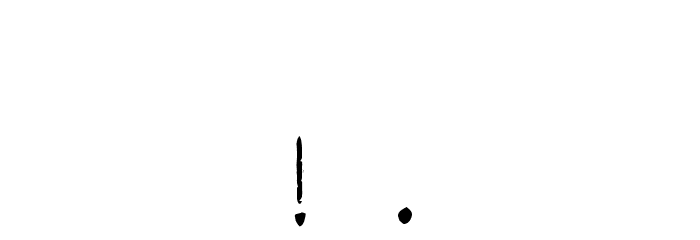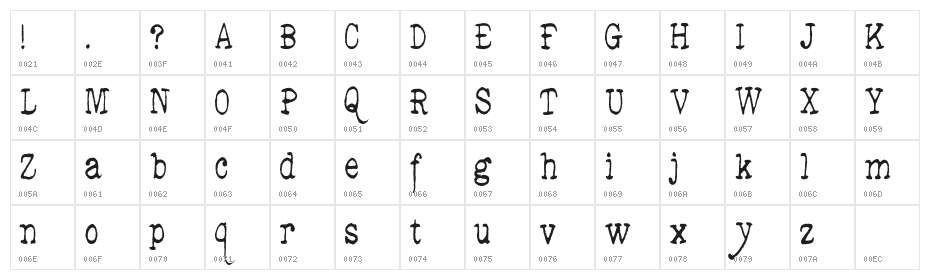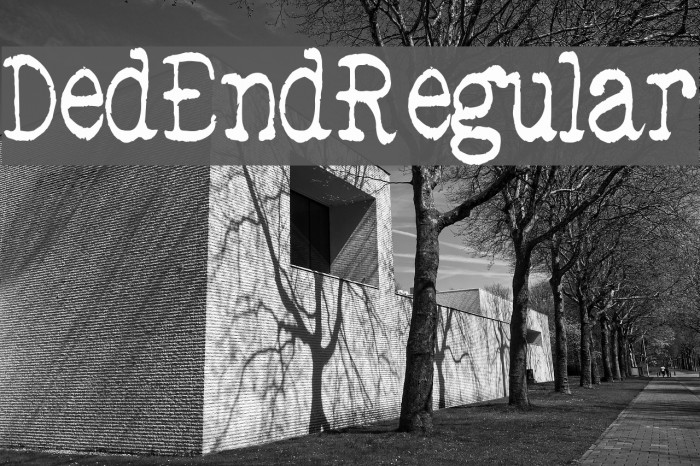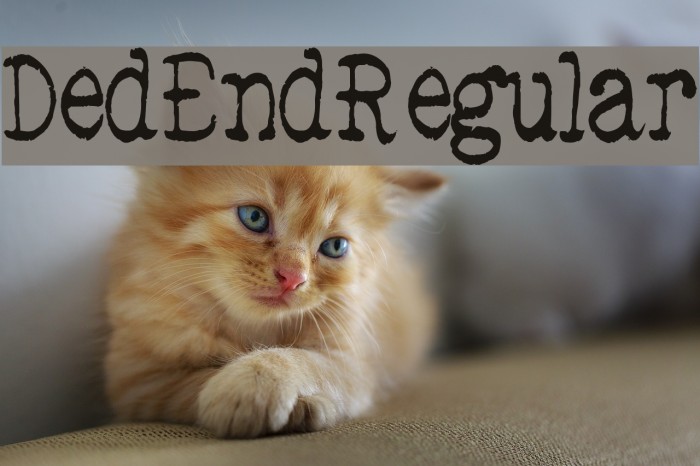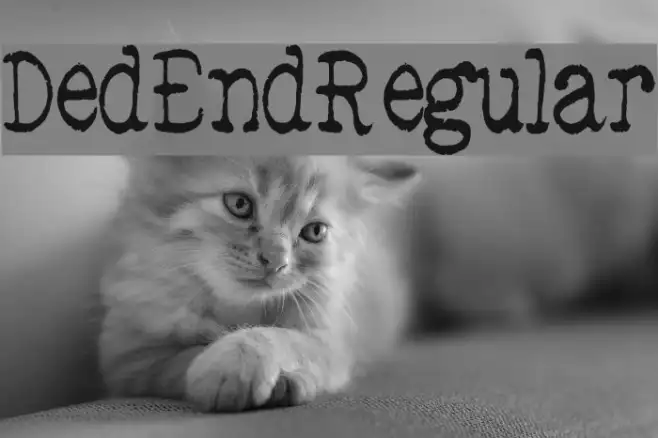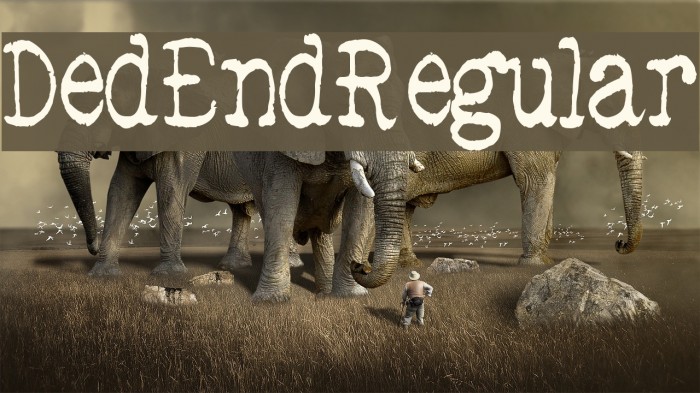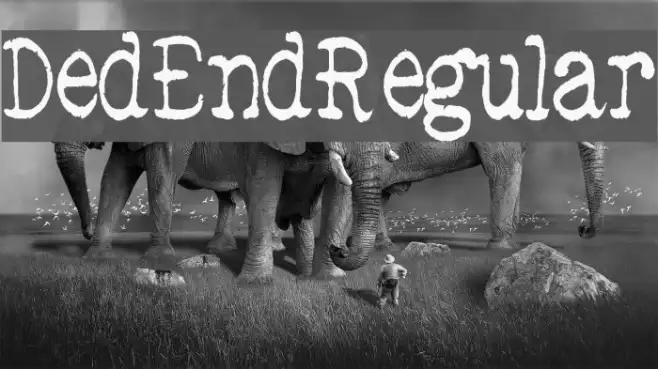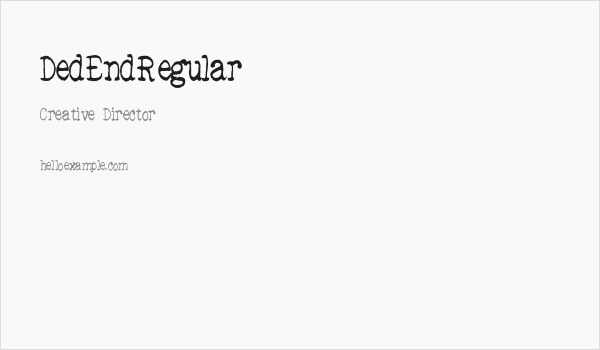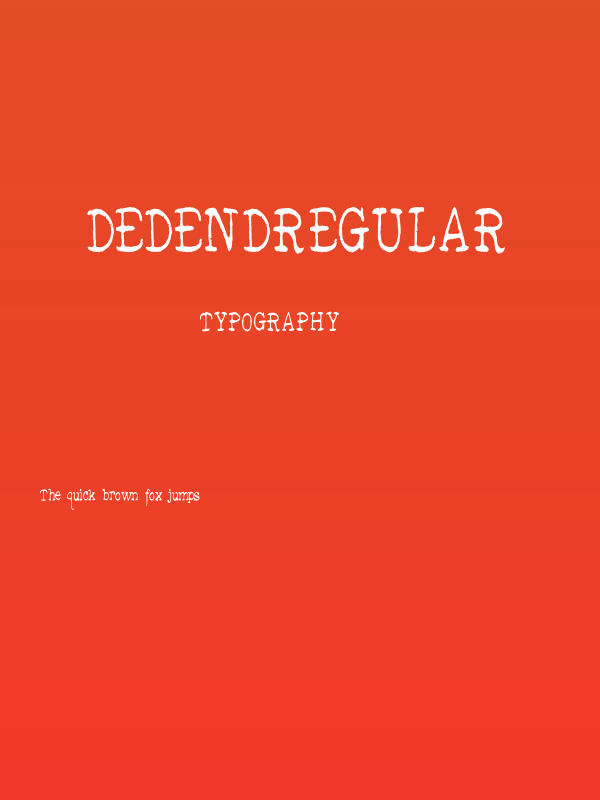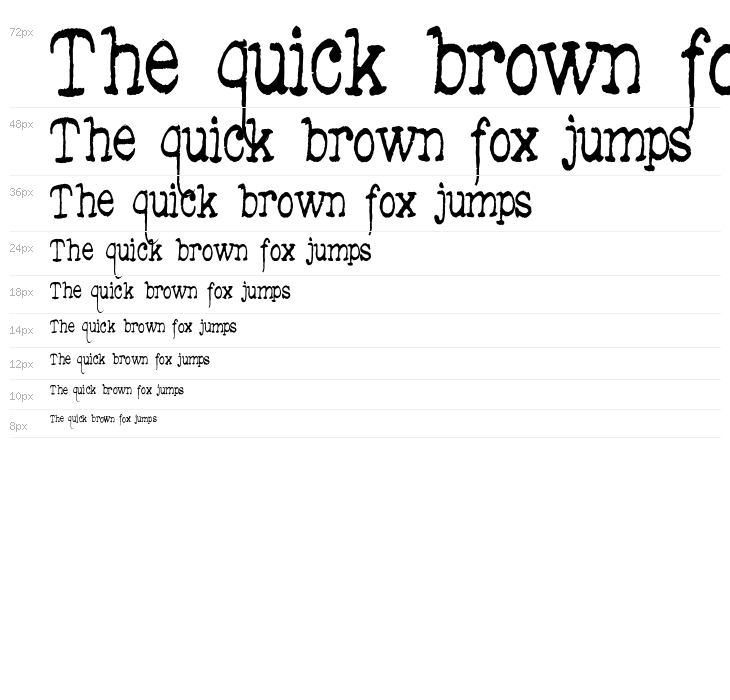
DedEnd-Regular Font
DedEnd-Regular Description
This font features a distressed, vintage aesthetic with a hand-crafted feel. The characters are bold and slightly irregular, giving them a unique, organic look. The uppercase and lowercase letters maintain a consistent style, with rounded edges and a rough texture that suggests a worn or aged appearance. The font lacks uniformity in stroke width, contributing to its rustic charm. It is ideal for projects that require a touch of nostalgia or a handcrafted look, such as posters, branding for artisanal products, or vintage-themed designs.
| Proposed Projects | Ideal for vintage-themed designs, artisanal product branding, posters, and creative projects requiring a rustic touch. |